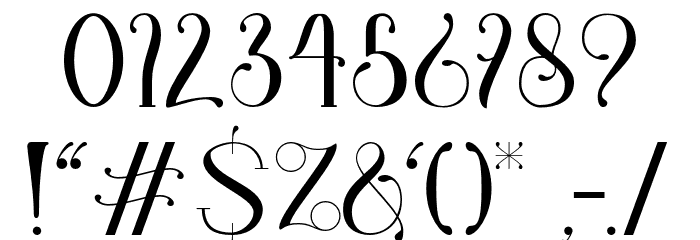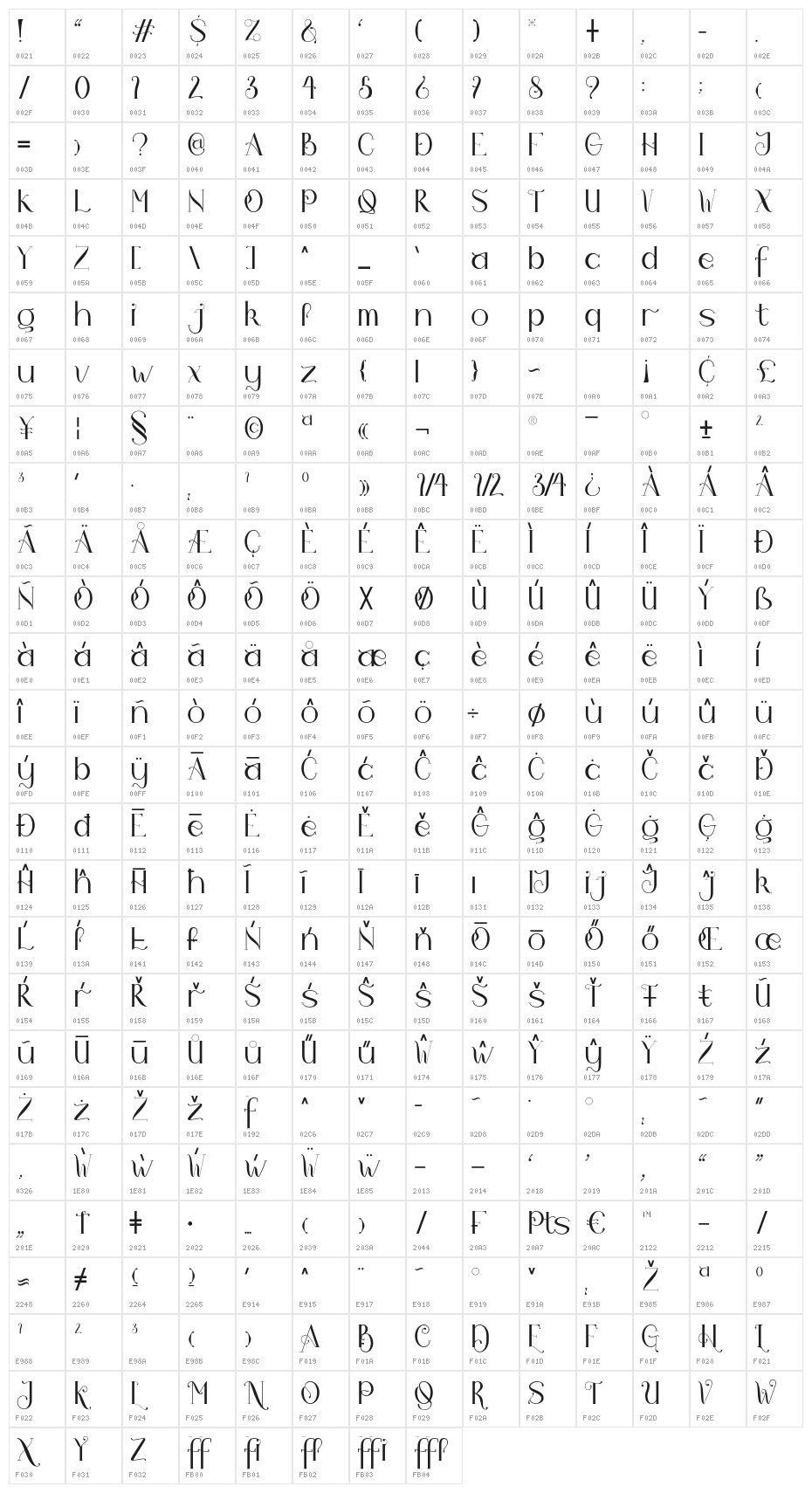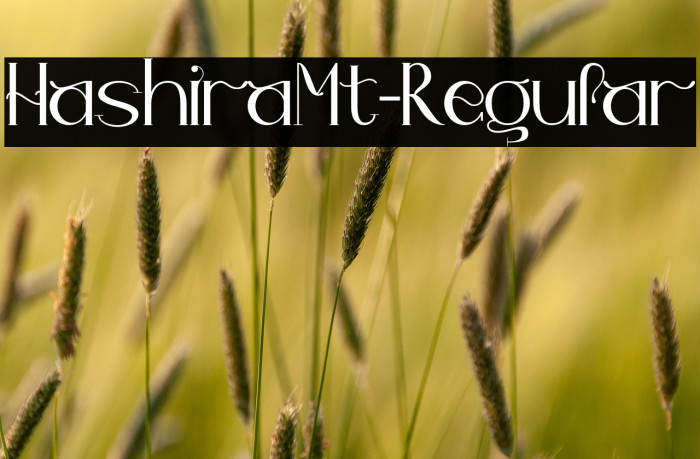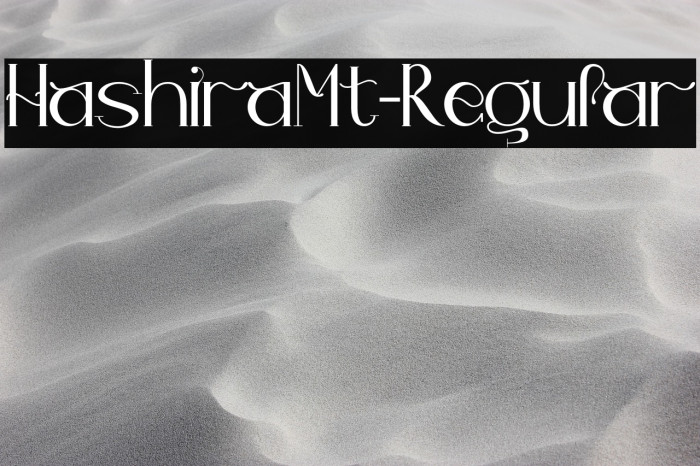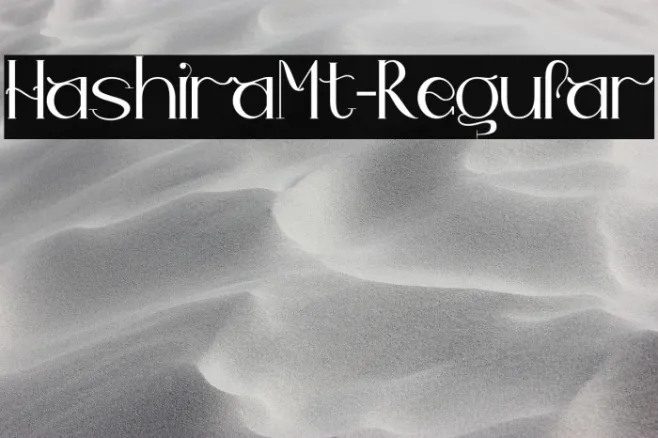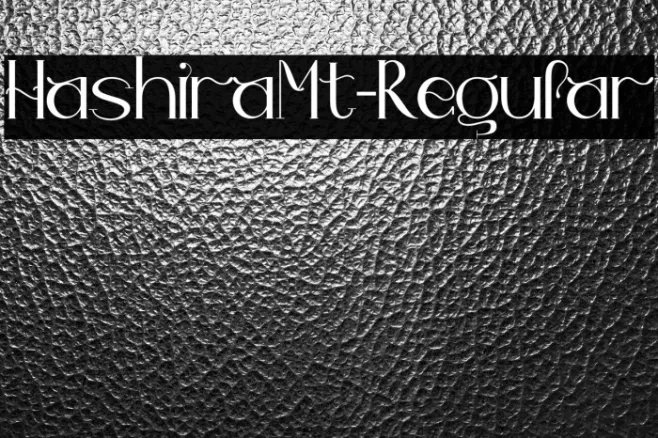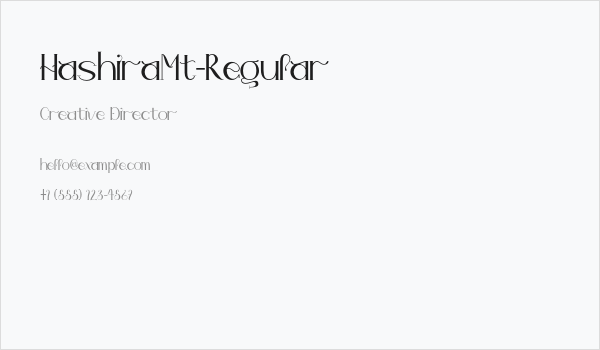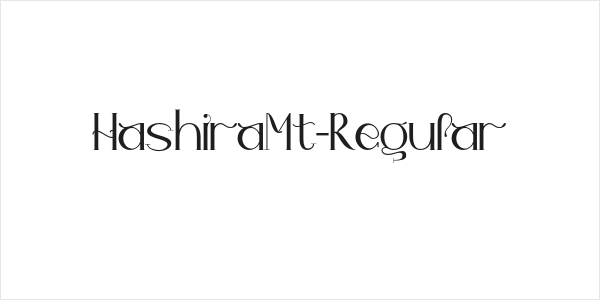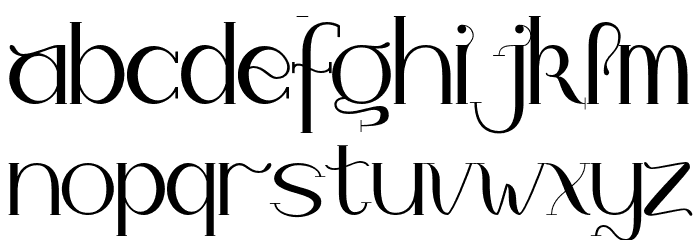
HashiraMt-Regular Font
HashiraMt-Regular Description
This font features a unique blend of modern and decorative elements, characterized by its elegant and artistic letterforms. The uppercase letters exhibit a sophisticated flair with distinctive curves and loops, while the lowercase letters maintain a harmonious flow. The numerals are equally stylish, with a consistent design that complements the alphabet. Special characters are crafted with attention to detail, adding to the font's overall charm. The font's design is both eye-catching and versatile, making it suitable for a variety of creative applications.